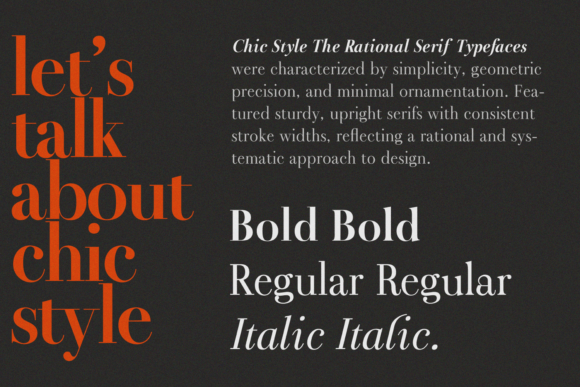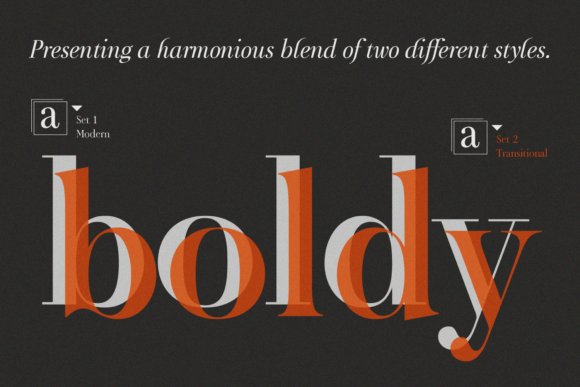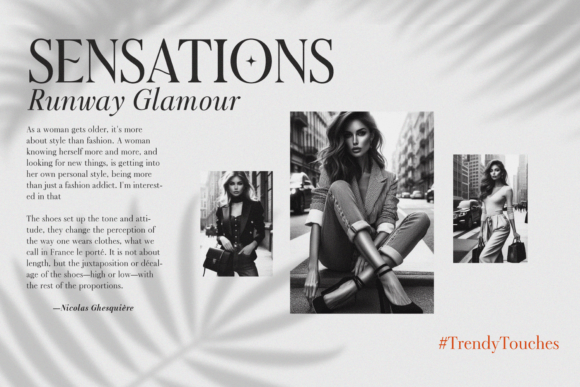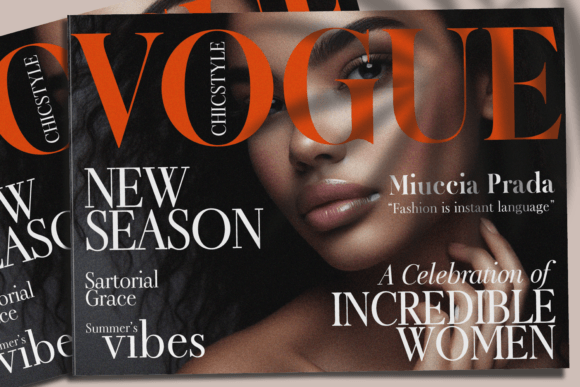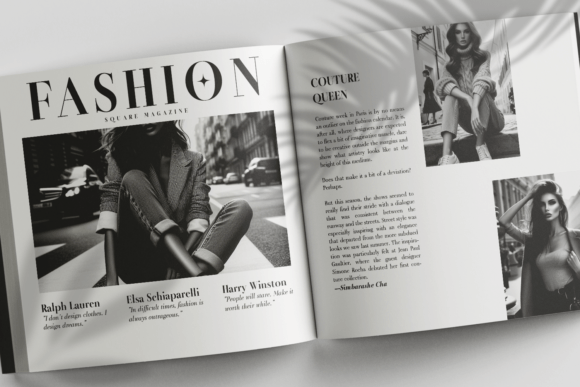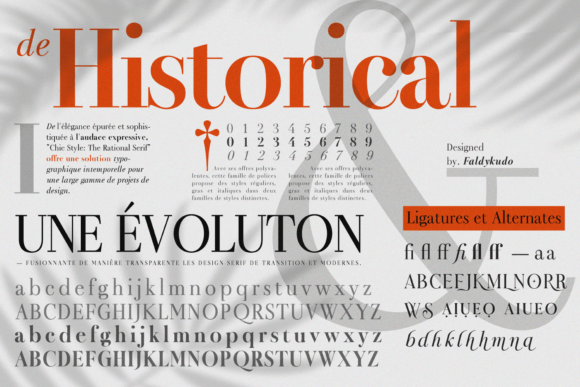
Introducing Chic Style: The Rational Serif Font
In the world of typography, finding the perfect font that embodies both elegance and versatility can be a daunting task. However, with Chic Style, a serif font family that presents a harmonious blend of Transitional and Modern Serif designs, designers and crafters can now breathe a sigh of relief. Dubbed “The Rational Serif,” Chic Style offers a unique and refreshing approach to typography, making it an ideal solution for a wide range of design projects.
A Harmonious Blend of Styles
Chic Style seamlessly merges two distinct styles within a single typeface, bringing together the best of both worlds. The Transitional Serif style, known for its classic and timeless feel, is perfectly balanced with the Modern Serif style, which adds a touch of sleekness and sophistication. This harmonious blend results in a font family that is both elegant and precise, making it perfect for designs that require a high level of refinement.
One of the standout features of Chic Style is its versatility. The font family boasts regular, bold, and italic styles across two distinct style families, offering designers a wide range of options to suit their creative needs. Whether you’re looking for a sleek and sophisticated font or a bold and expressive one, Chic Style has got you covered. From elegant wedding invitations to bold advertising campaigns, this font family delivers a timeless typographic solution that embodies elegance and precision in every character.
Effortless Style Switching
Another impressive feature of Chic Style is its ability to switch between rational and modern styles with ease. By simply opening the OpenType feature and activating the stylistic sets menu in your design app, you can transform the font’s style to suit your design needs. This feature allows designers to experiment with different styles and find the perfect fit for their project, all without having to switch to a different font.
Chic Style is a font family that is perfect for designers and crafters who value elegance, precision, and versatility. Whether you’re working on a branding project, creating wedding invitations, or designing a website, this font family is sure to impress. Its wide range of styles and effortless style switching feature make it an ideal solution for designers who need to create cohesive and visually appealing designs.
Key Features of Chic Style
- Harmonious blend of Transitional and Modern Serif designs
- Versatile font family with regular, bold, and italic styles
- Two distinct style families to choose from
- Effortless style switching with OpenType feature
- Elegant and precise typography
- Perfect for a wide range of design projects
In conclusion, Chic Style is a game-changing font family that offers a unique and refreshing approach to typography. Its harmonious blend of Transitional and Modern Serif designs, versatility, and effortless style switching feature make it an ideal solution for designers and crafters who value elegance, precision, and versatility. Whether you’re working on a branding project, creating wedding invitations, or designing a website, Chic Style is sure to deliver a timeless typographic solution that embodies elegance and precision in every character.